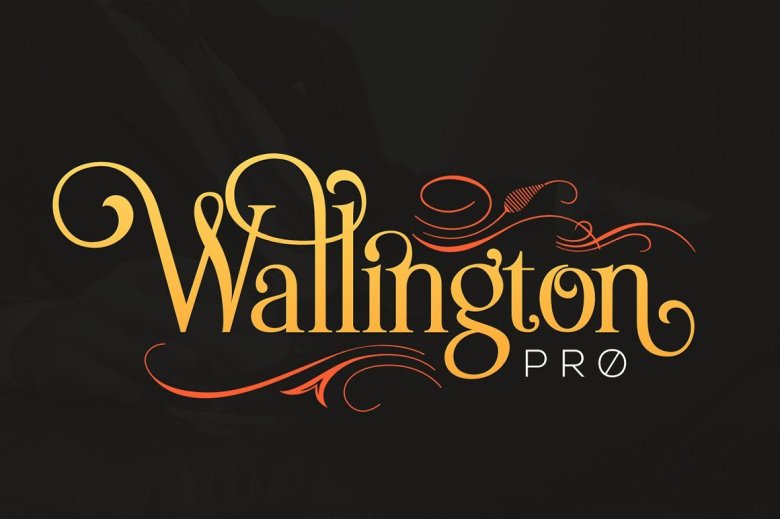
The Wallington Pro Font
Introducing Wallington. Wallington designed and shared by Zeune Ink Foundry . Wallington Pro is a decorative-serif font embodying vintage and elegant curves with functional structure. Style is adopted from Old English cultures with their descendants around mid-12th century and Art nouveau in 19th century, it was inspired by natural forms and structures and the curved lines. Crafted with love and easy-to-read letter design.
Wallington is an experimental and versatile font. Suitable for digital lettering, prints, logo, poster, t-shirt, packaging and applicable for some type of graphic design.